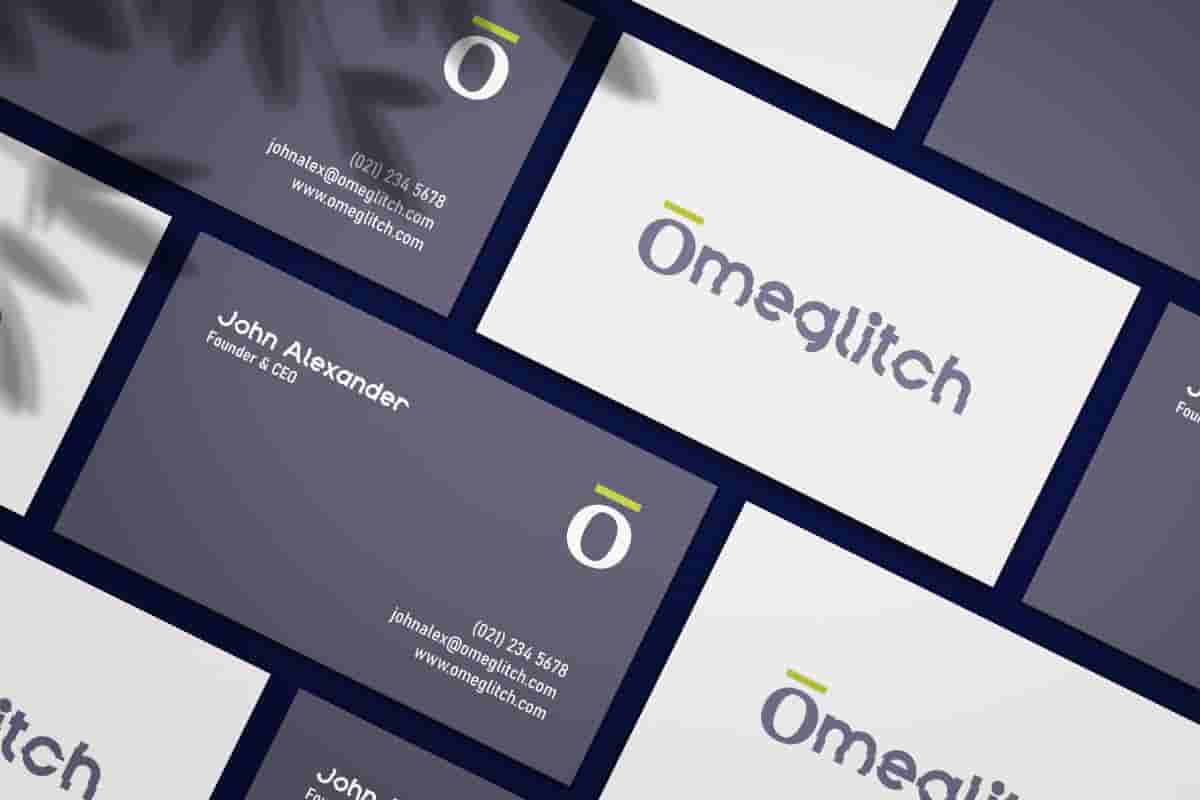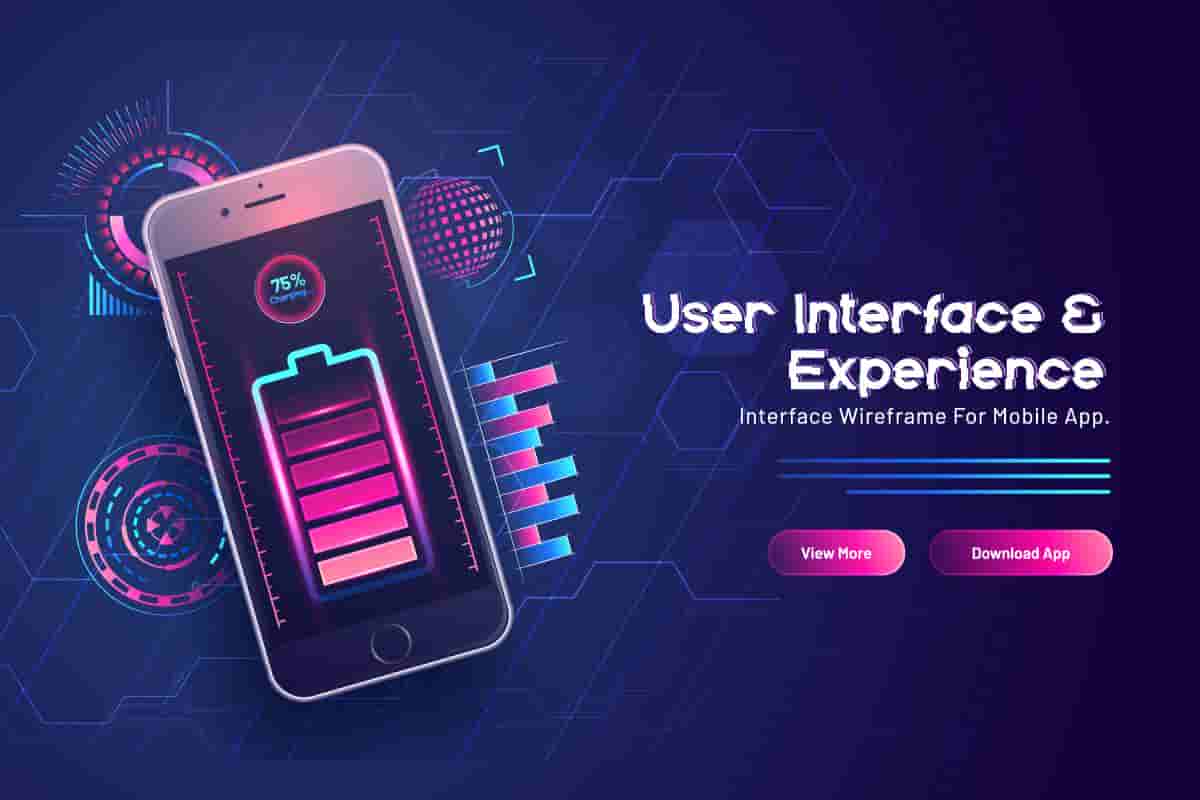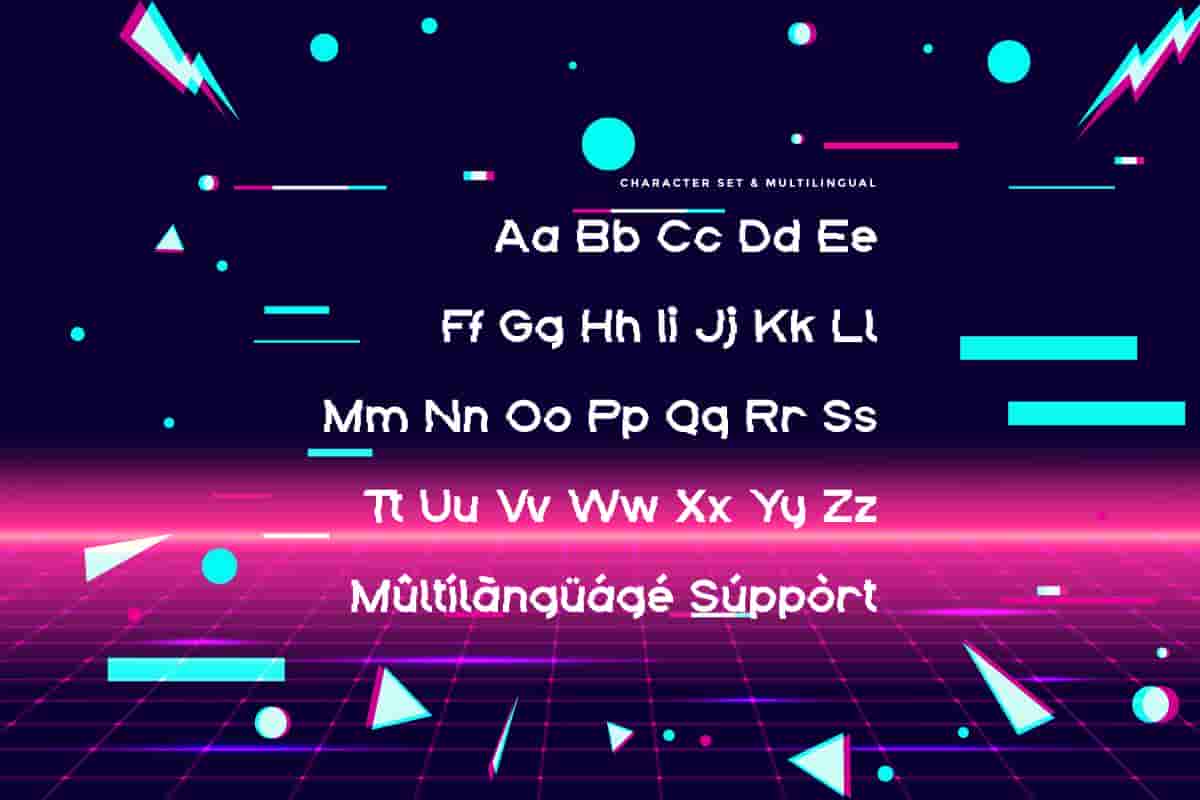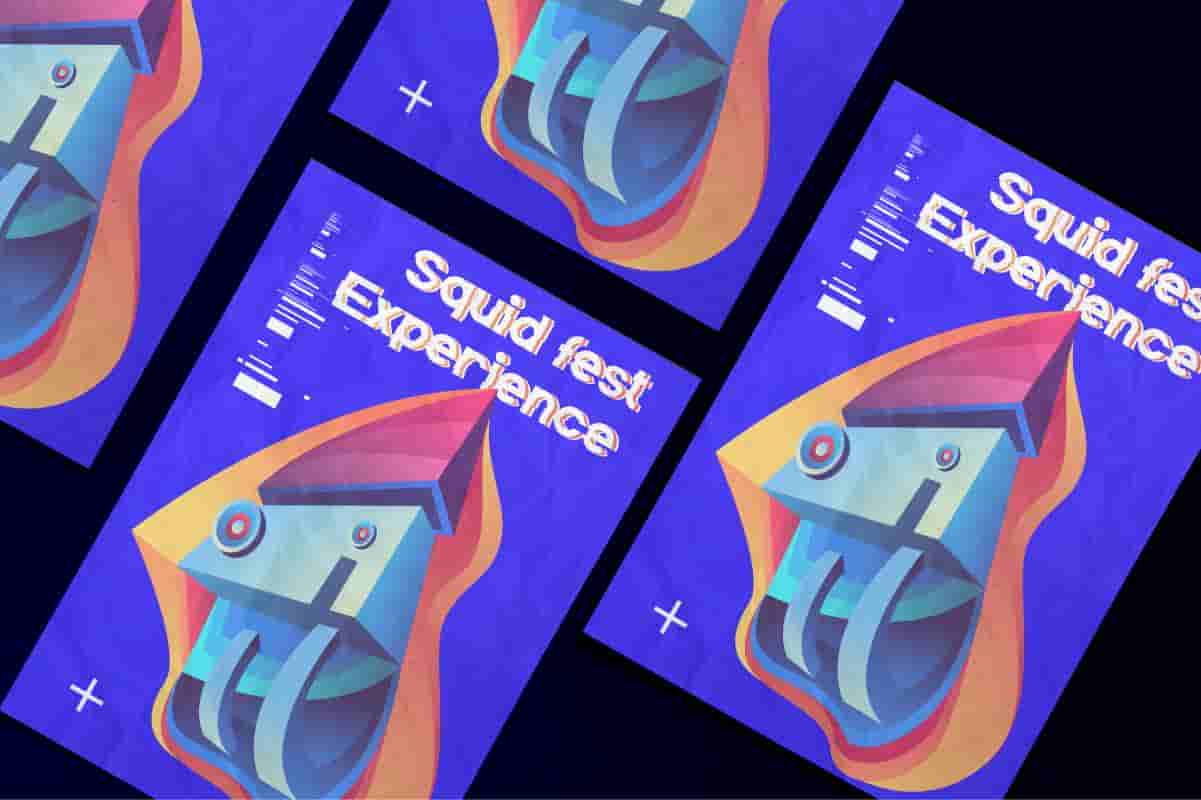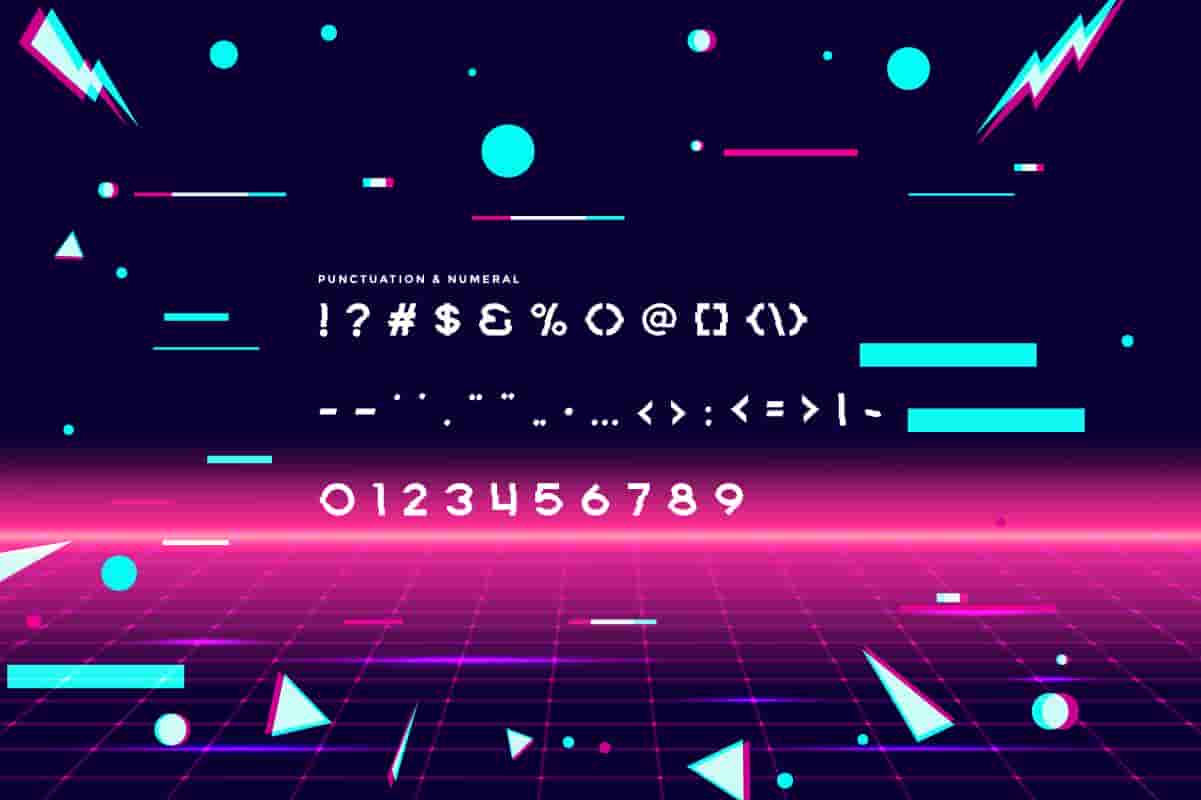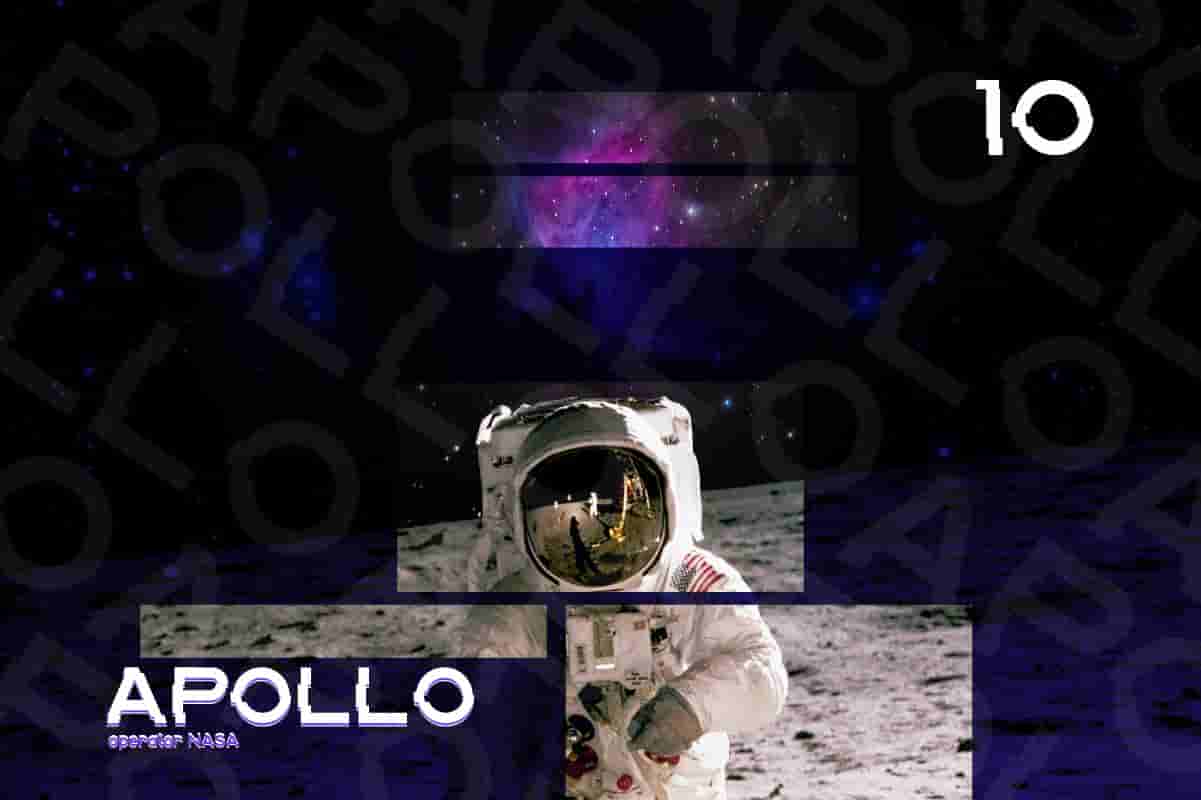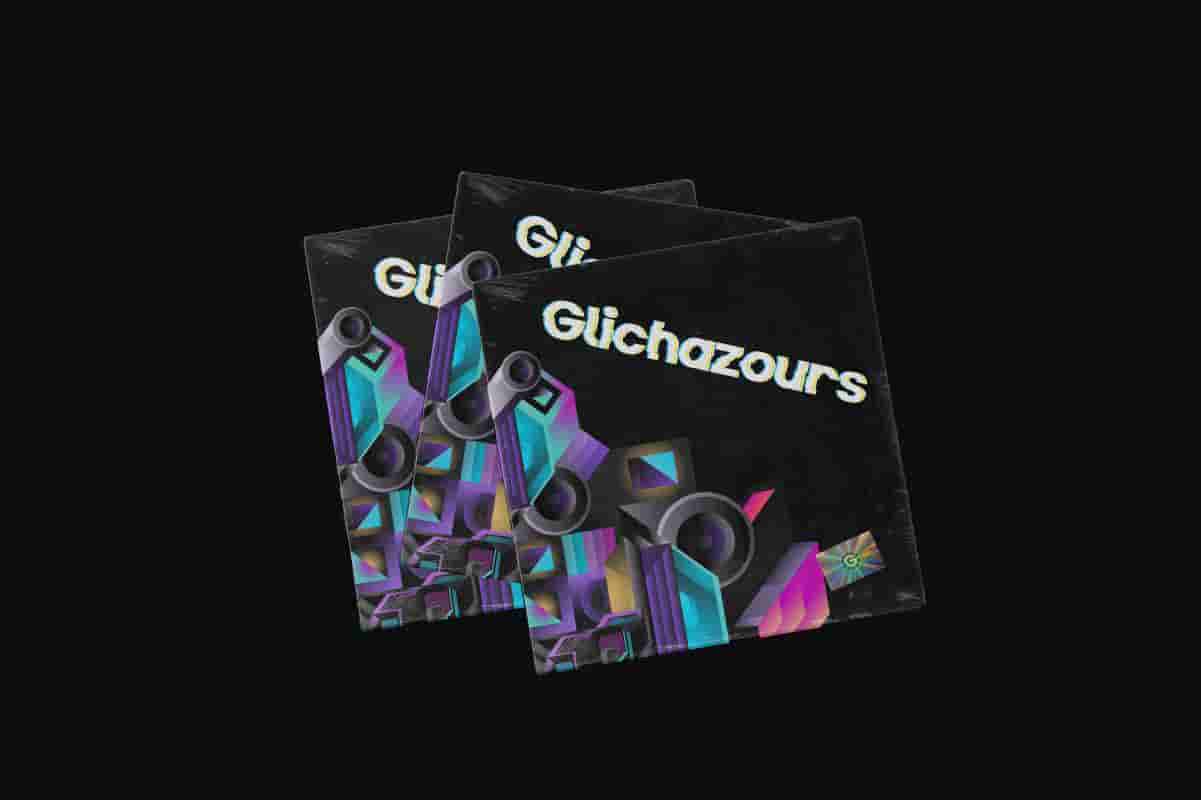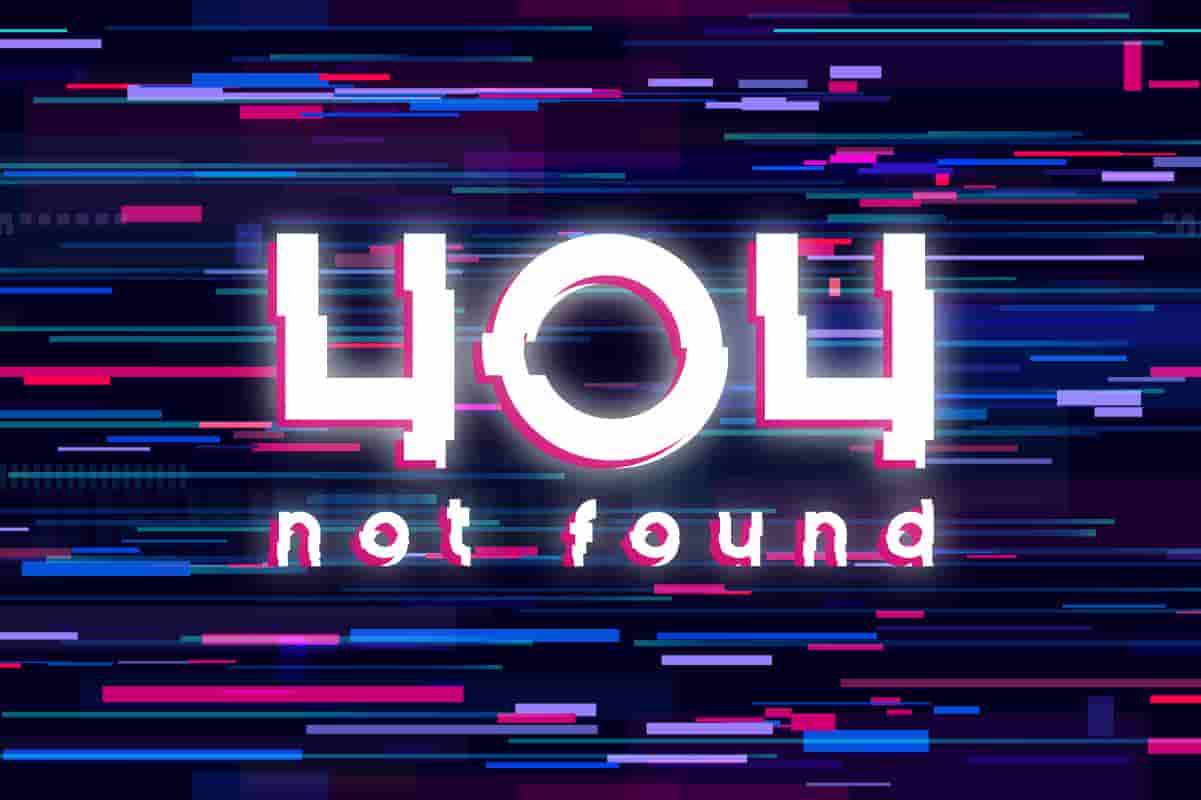
New Glitch Display Font
New Glitch Font is a retro techno display font designed by Rais Project. The font has unique style that is great for Games, Poster, Events, Magazine, Music, etc
New Glitch a display font inspired from classic poster and flyers designed by RaisProject. The font has unique, modern and retro style. You can see the demo font below. You can also input any word you want so you can see what it will look like :
New Glitch Font remotely made by RaisProject team in Indonesia. The font handcrafted for any your special projects including : headlines, promotion, events, branding, advertising, magazine, signage, invitation, stationery, social media posts, label, or and any projects that need unique strong style. New Glitch Display Font includes full set of gorgeous uppercase and lowercase letters ,numerals and Multi languages characters. The font also come with artistic ligatures to make it looks really great and unique. On the package You will get: